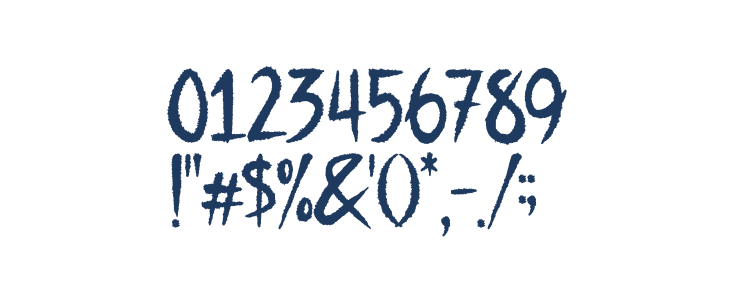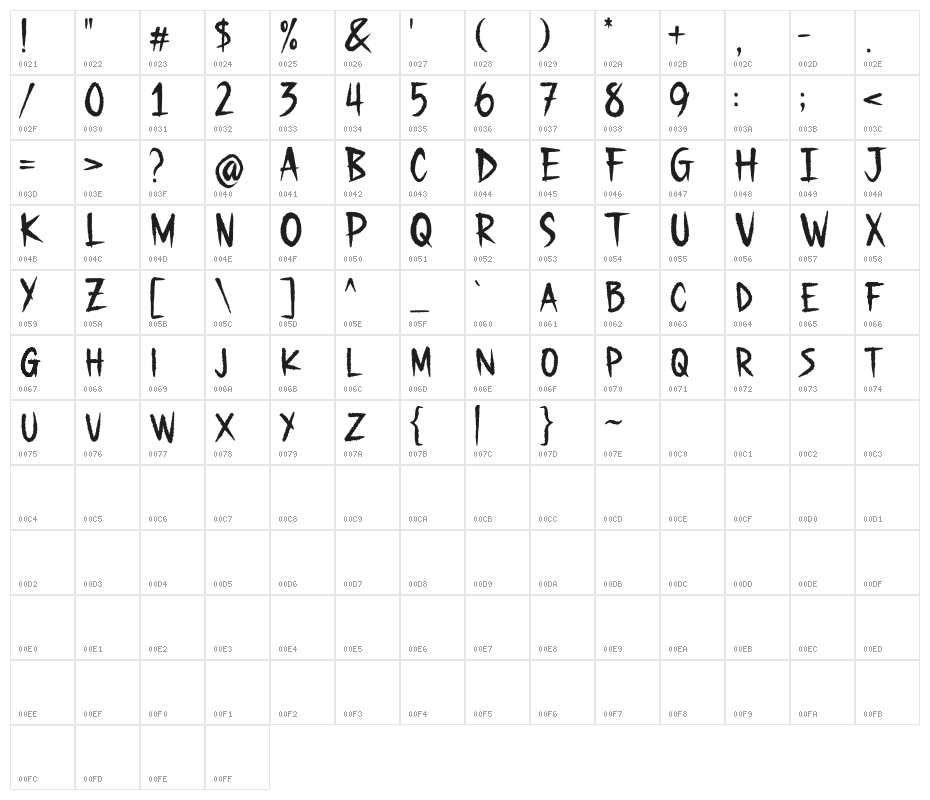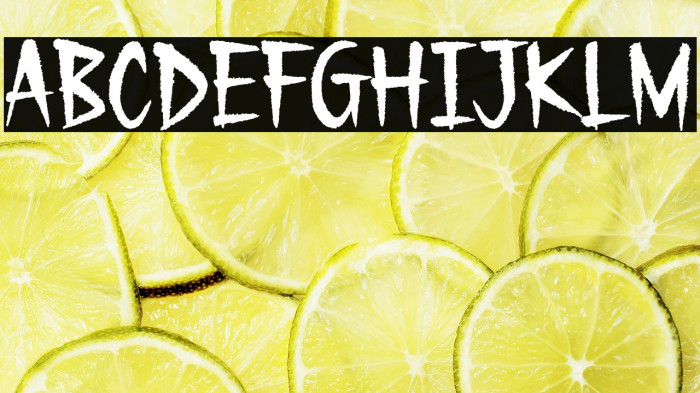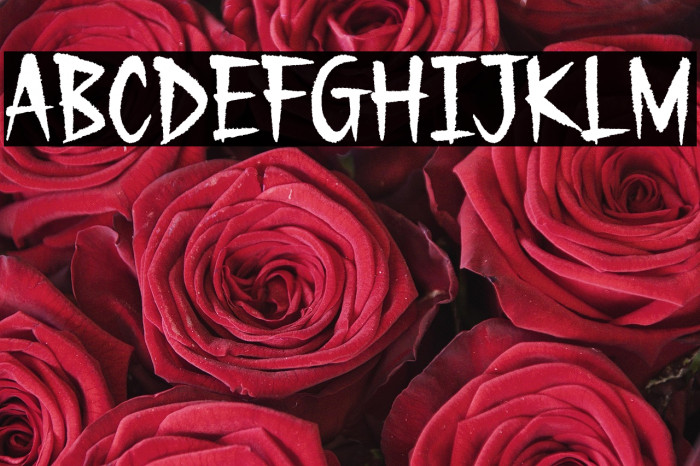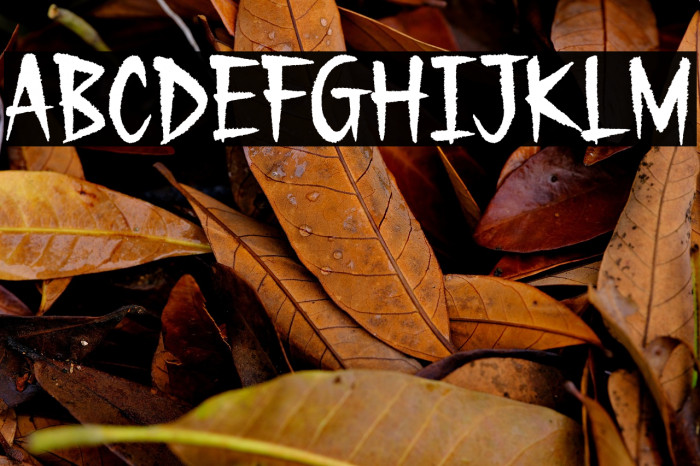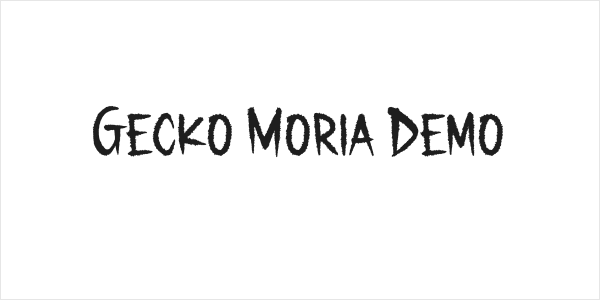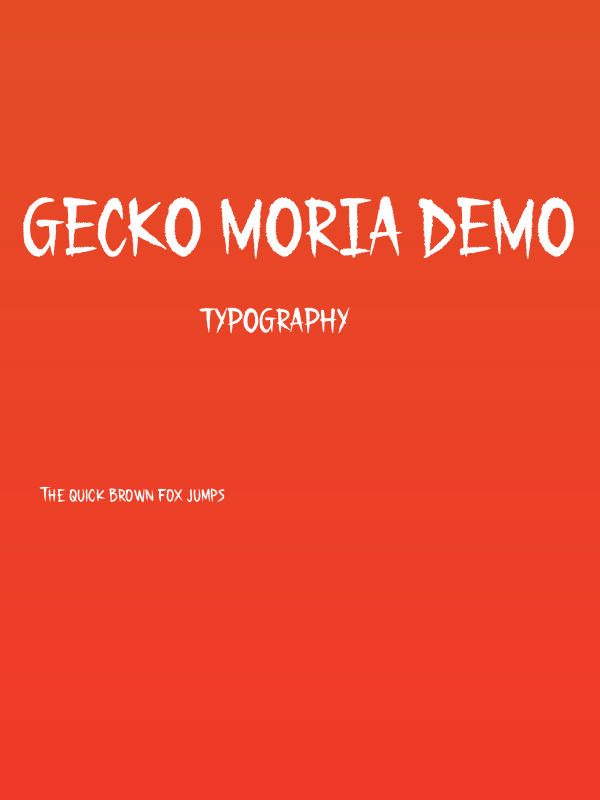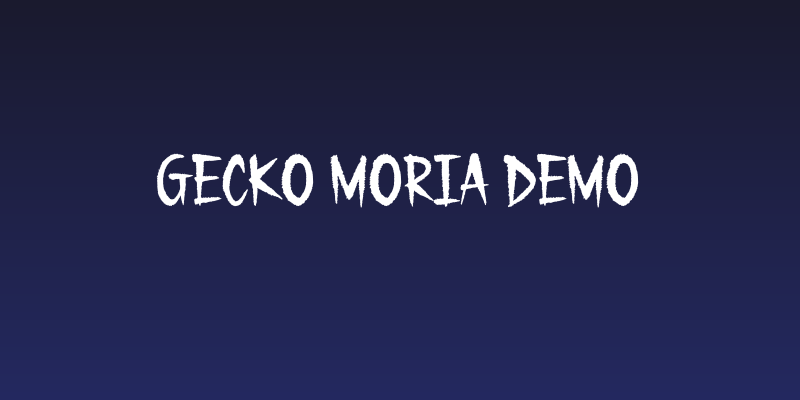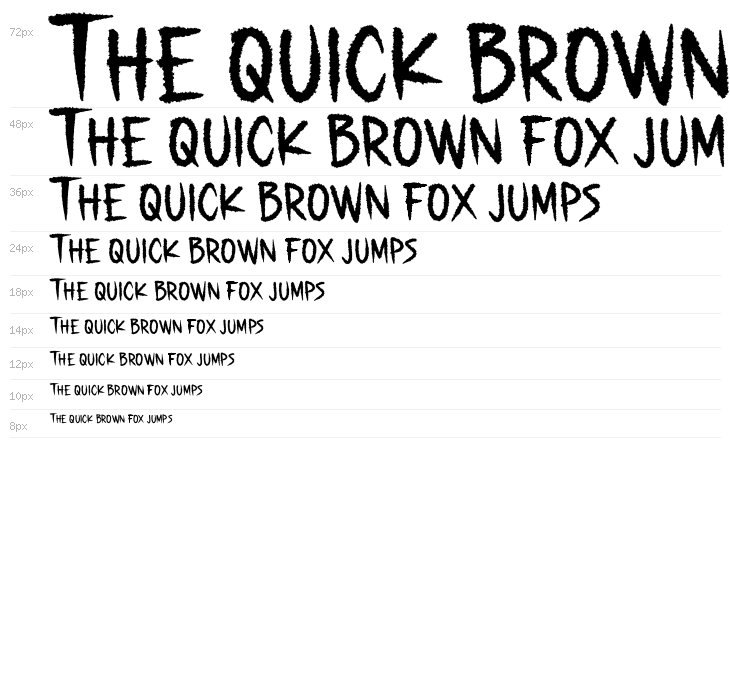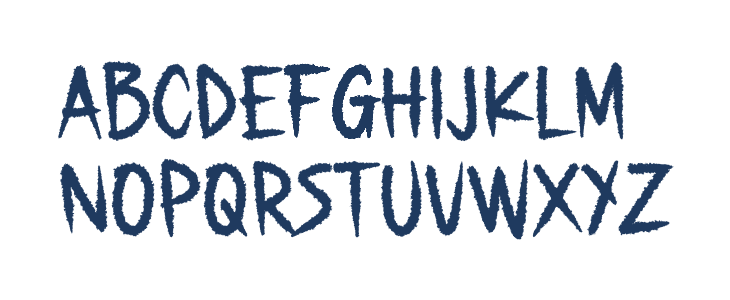
Gecko Moria Demo Font
Gecko Moria Demo Description
This font features a bold, hand-drawn style with a rough, textured appearance. The letters are uppercase and lowercase, with a slightly irregular and playful form that gives it a dynamic and energetic feel. The numbers and special characters maintain this hand-crafted aesthetic, adding to its unique charm. The strokes are thick and uneven, contributing to a high-contrast look that stands out. This font is ideal for projects that require a bold statement or a creative, artistic touch.
| Proposed Projects | Ideal for posters, album covers, comic books, and creative branding projects. |